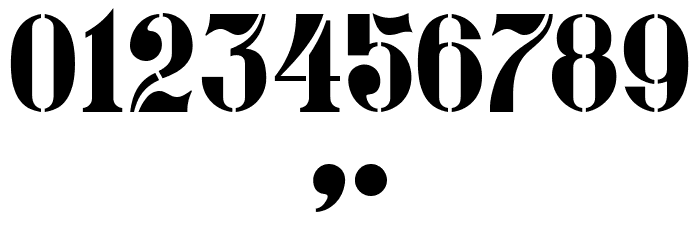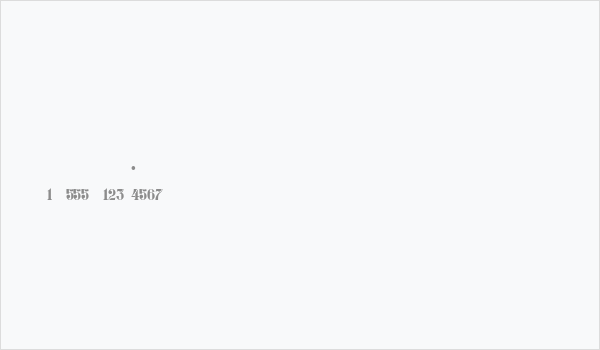
Tiraspol Trolley Font
Tiraspol Trolley Description
This font features a bold and striking design with a high contrast between thick and thin strokes, giving it a dramatic and eye-catching appearance. The numbers are crafted with a unique blend of curves and sharp edges, creating a sense of movement and energy. The font's style is reminiscent of vintage poster typography, making it ideal for projects that require a retro or classic touch. The characters are well-spaced, ensuring readability while maintaining a strong visual impact.
Overall StyleVintage
Proposed ProjectsIdeal for use in posters, headlines, branding, and any project that requires a vintage or retro aesthetic.